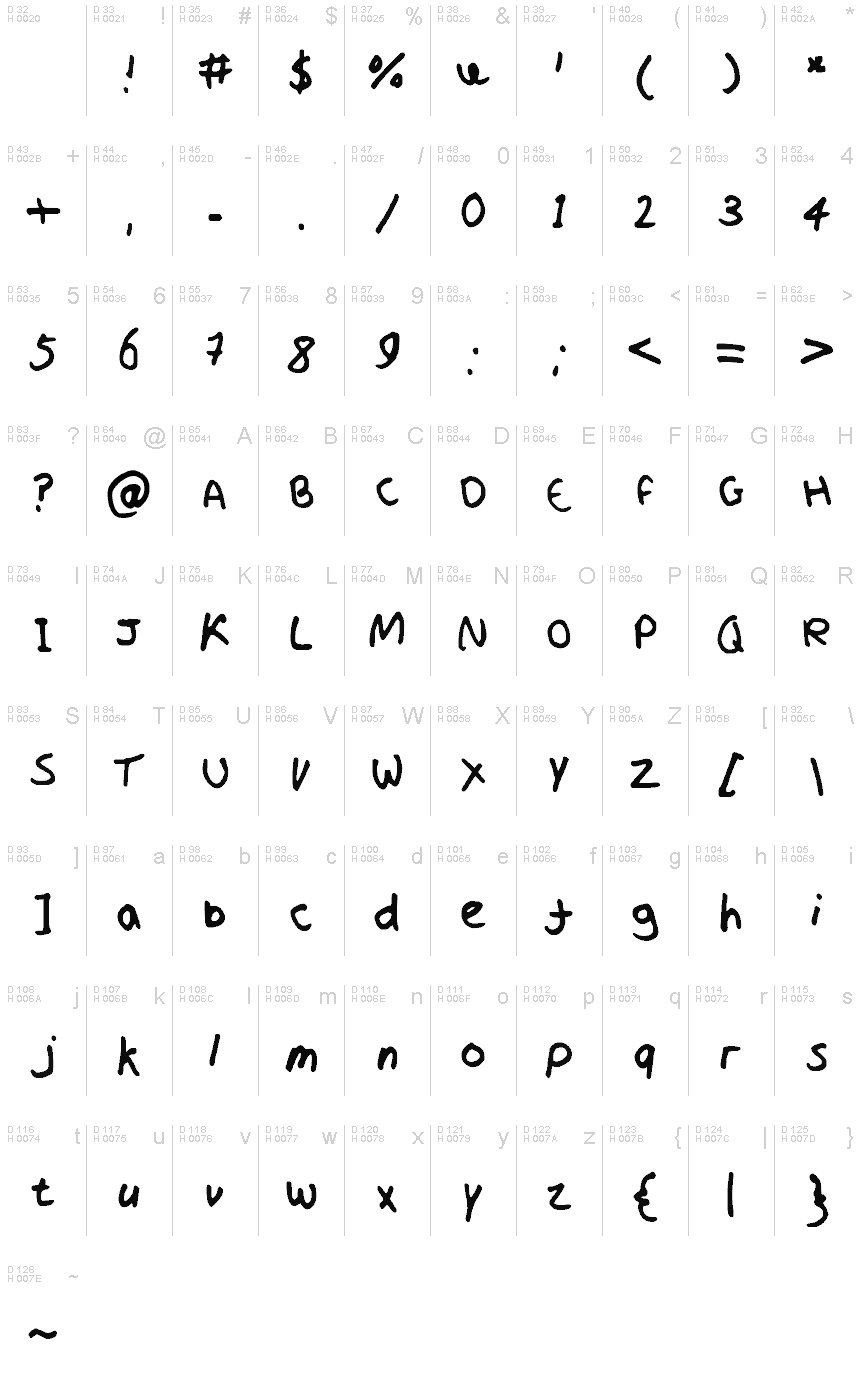
ProfessorShroom
Professor Shroom is a handwritten font that exudes a captivating sense of whimsy and eccentricity. Inspired by the organic curves and playful strokes of mushroom caps, this font showcases a delightful, almost mischievous personality. Its irregular letter forms and varied line weights create a charming, hand-crafted aesthetic, making it an excellent choice for a wide range of design applications, from children's storybooks to quirky branding and packaging. The font's unique character and versatility make it a standout option for designers seeking to add a touch of personality and character to their projects.
This font would be particularly well-suited for designs that aim to evoke a sense of imagination, adventure, or the natural world. Its playful nature lends itself beautifully to illustrated children's books, while its distinct style could also elevate packaging for organic or artisanal products.